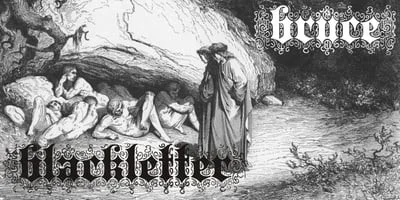
Bruce 532 Blackletter Font
The Bruce 532 Blackletter Font is a powerfully striking and historically rich display typeface, characterized by its intricate, bold, and dramatically gothic forms. It directly evokes the majestic grandeur of medieval illuminated manuscripts and solemn ancient declarations. Imagine its commanding characters gracing the titles of historical documentaries, adding an authentic, imposing feel to epic fantasy novel covers, or creating impactful branding for craft breweries and artisanal goods with a traditional aesthetic. Its ornate yet often legible structure also makes it an excellent choice for unique event invitations with a historical theme, decorative certificates, heavy metal album art, and any design where a sense of tradition, strength, and dramatic flair is paramount. Whether you're aiming for a classic, dark academia look or a bold, impactful statement with a touch of ancient mystique, Bruce 532 Blackletter Font delivers with its unmistakable personality, ensuring your visuals are both intriguing and truly memorable.
What makes Bruce 532 Blackletter Font so exciting is its profound ability to instantly transport viewers to a bygone era of elaborate craftsmanship and solemn pronouncements. In a visual landscape often dominated by modern simplicity, this font offers a refreshing dive into the ornate beauty of historical lettering. It’s more than just a typeface; it’s a design element that can instantly set a ceremonial and majestic tone for a project, making content feel more profound and aesthetically rich. Designers will find it an invaluable asset for creating visuals that truly resonate with an audience seeking connection with heritage, artistic detail, and a sense of timeless power. It's especially powerful when used for display, commanding attention with its unique historical presence, and for this reason, the Bruce 532 Blackletter Font is an invaluable resource.
The Bruce 532 Blackletter Font family, typical of many blackletter revivals, often focuses on delivering a primary, highly detailed weight that embodies its distinctive style. While there might not be a wide range of conventional weights (like light or thin) as seen in more modern sans-serifs or serifs, the "family" might refer to variations in detail or alternative stylistic sets that enhance its expressive capabilities. You would typically find: a robust Bruce 532 Blackletter Regular which forms the core design, rich with historical detail and bold presence. Additionally, many blackletter fonts offer Alternative Glyphs or Stylistic Sets for certain letters. These allow for greater customization and help to avoid clashes in complex word compositions, reflecting the variations found in historical calligraphy. Sometimes, special decorative Ornate Capitals or initial caps are also included, further enhancing the medieval manuscript feel.